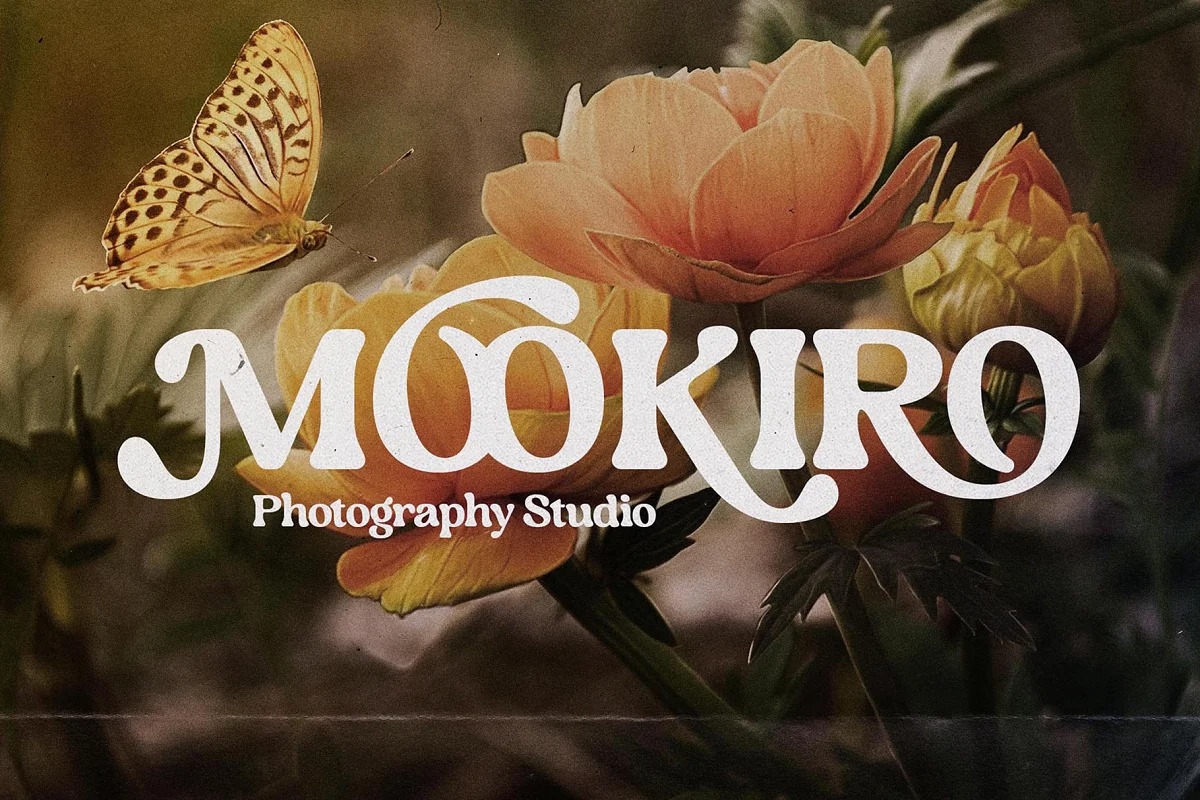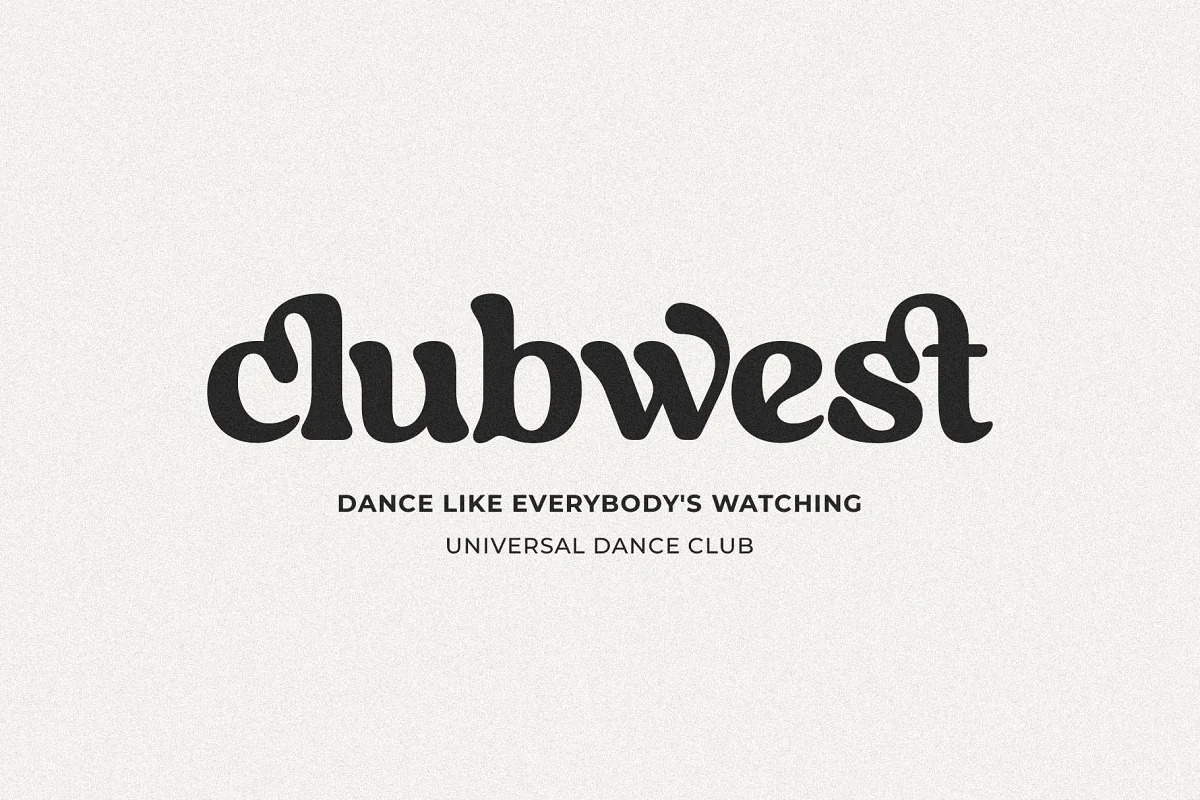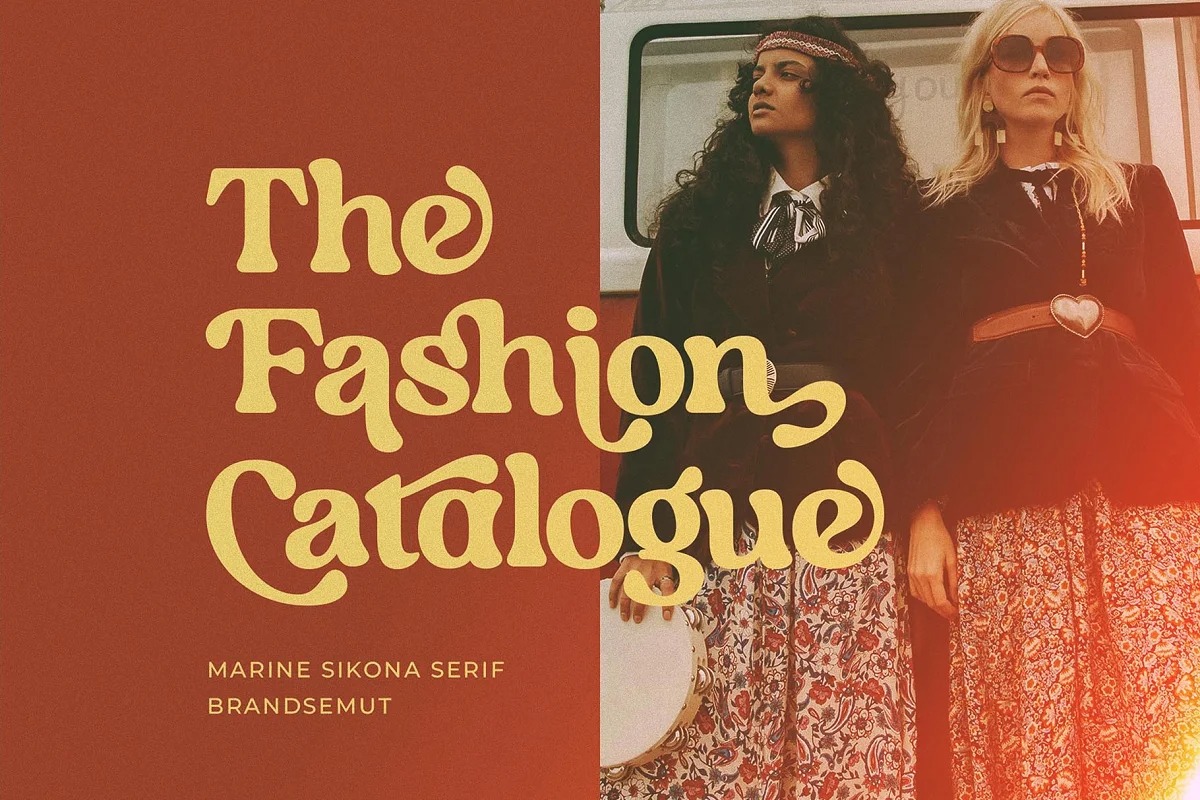
Marine Sikona Font
Marine Sikona Serif Font is a soft serif typeface inspired by the 60’s retro styles that bring chunky retro typography to the modern era. Marine Sikona is a retro and modern display serif, best used as a display for headings, logos, branding, magazines, product packaging and invitations. Marine Sikona equipped with Ligature and many Alternates and come with clean lines and smooth curves give any project an extra touch of class.